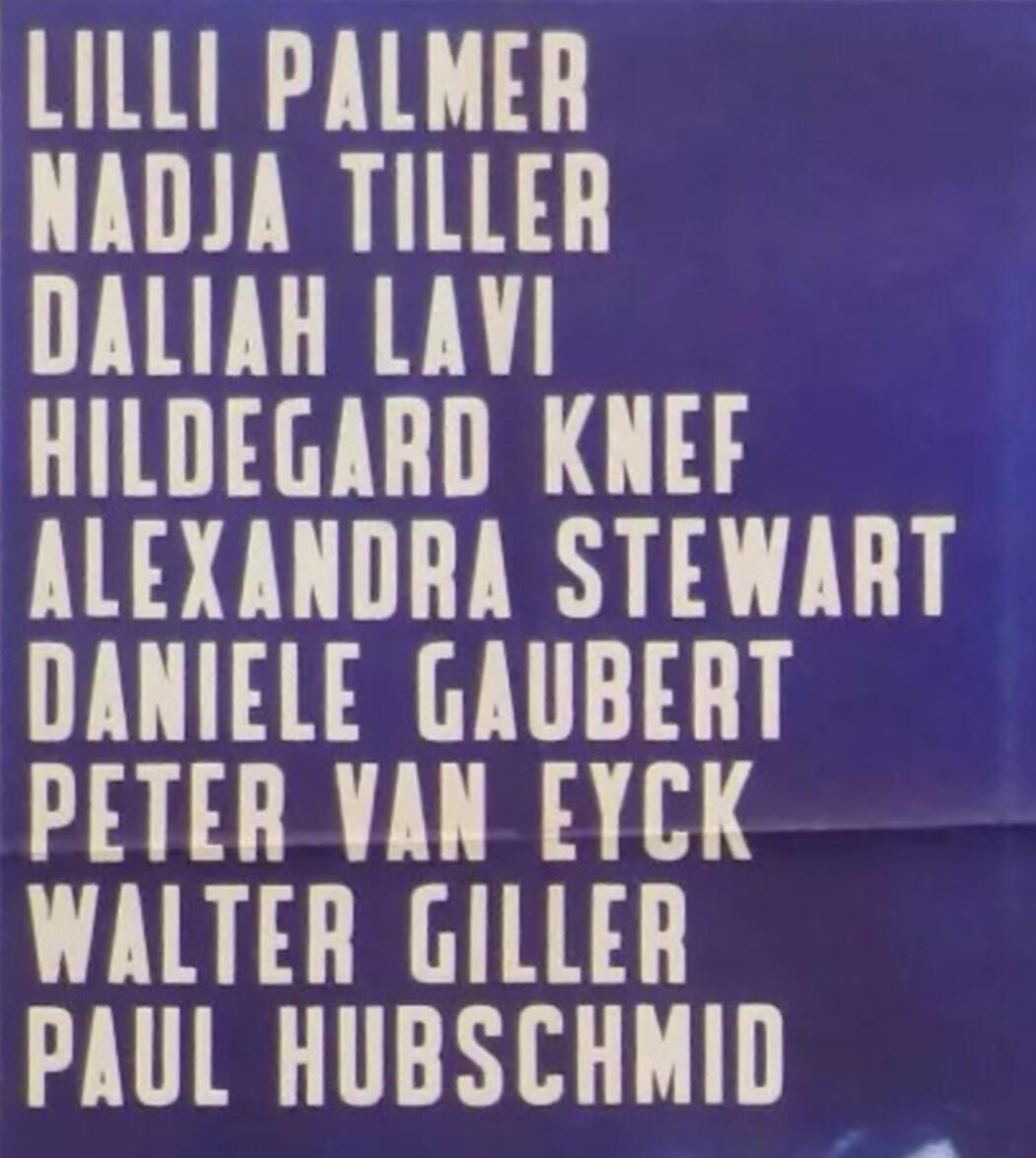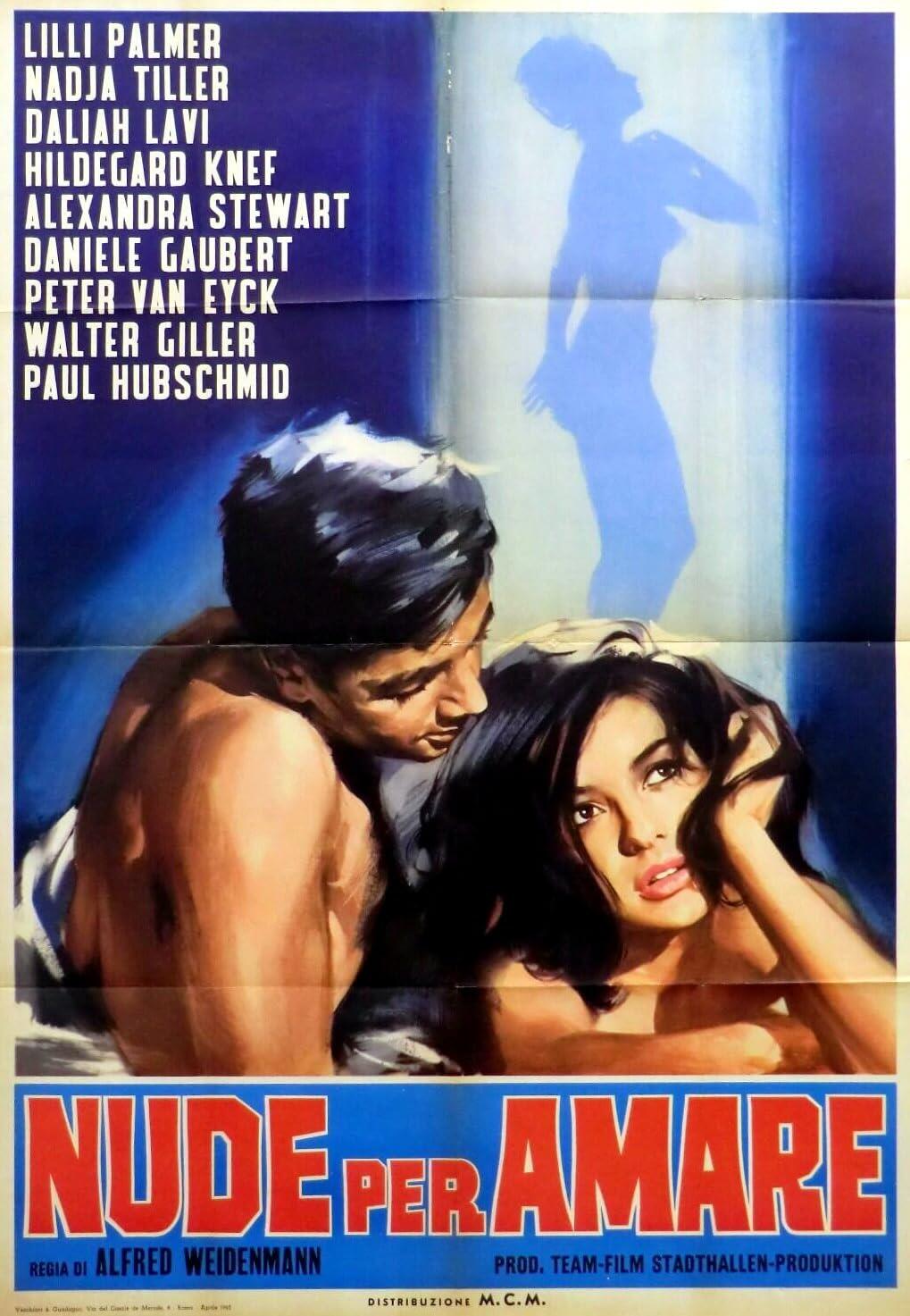
font on movie posters from the 1950s to the 1970s (Das große Liebesspiel)
I would like to identify this very famous font on movie posters from the 1950s to the 1970s. I would be very grateful.